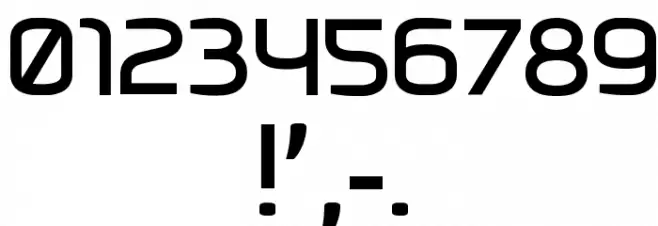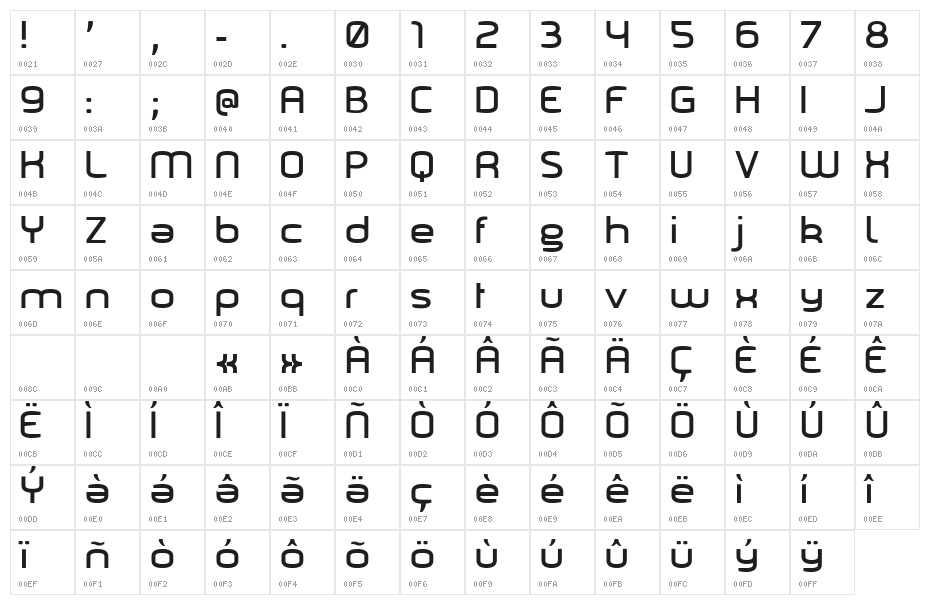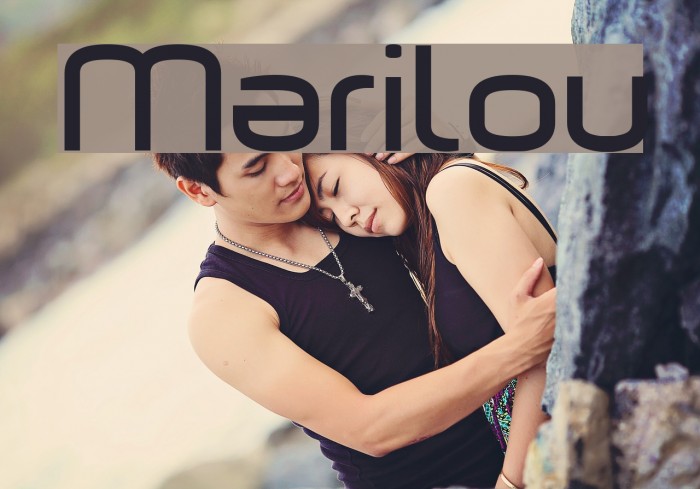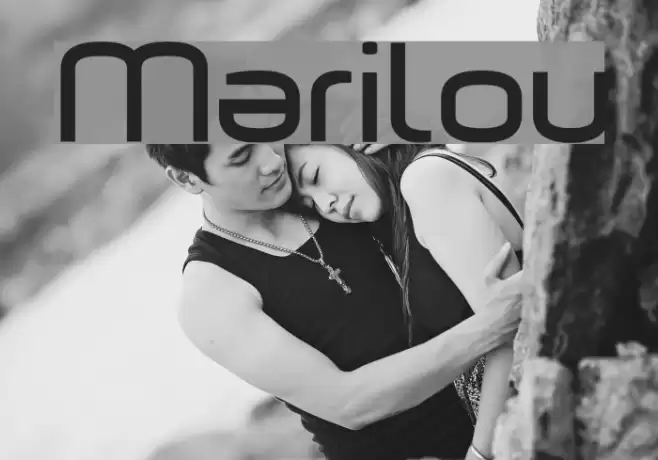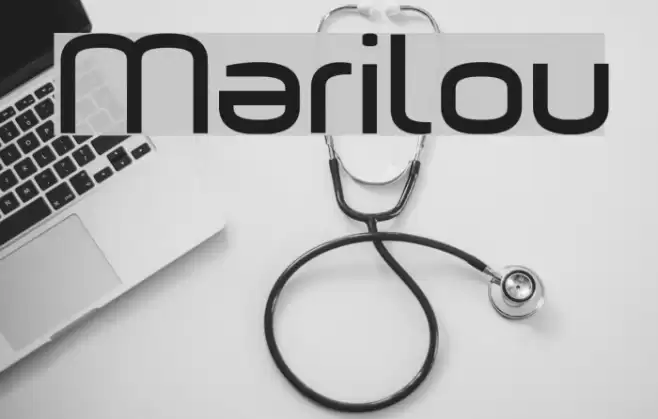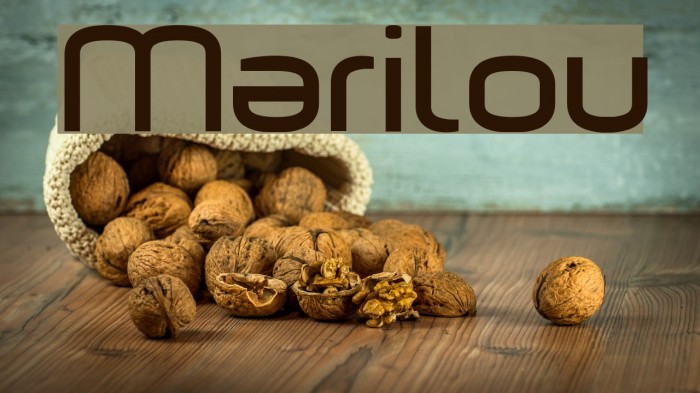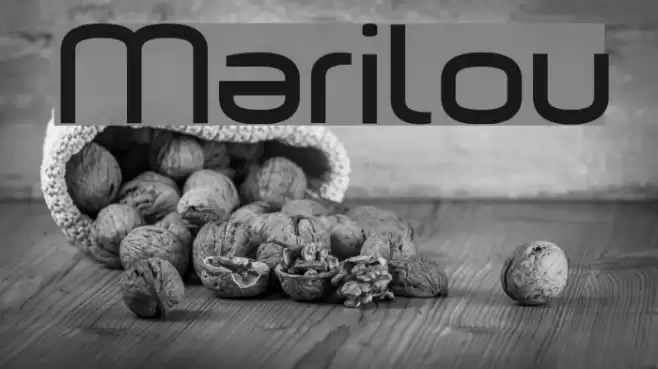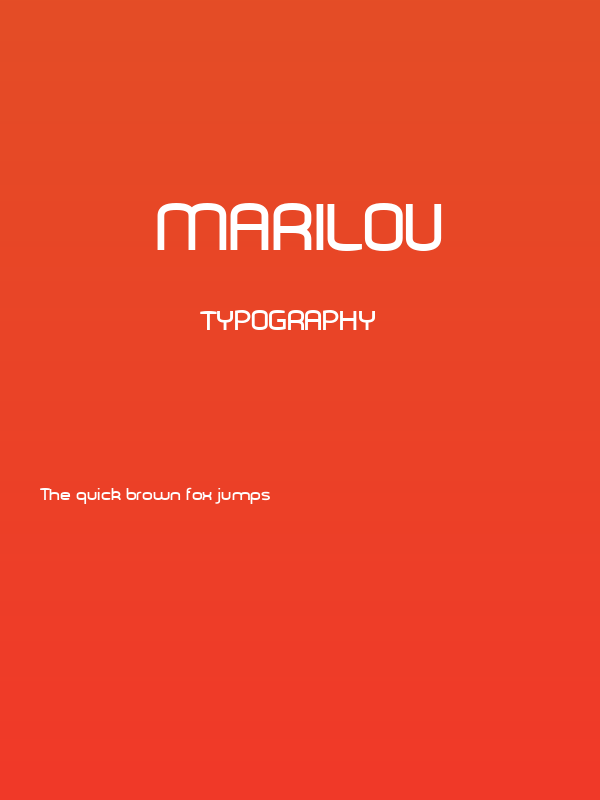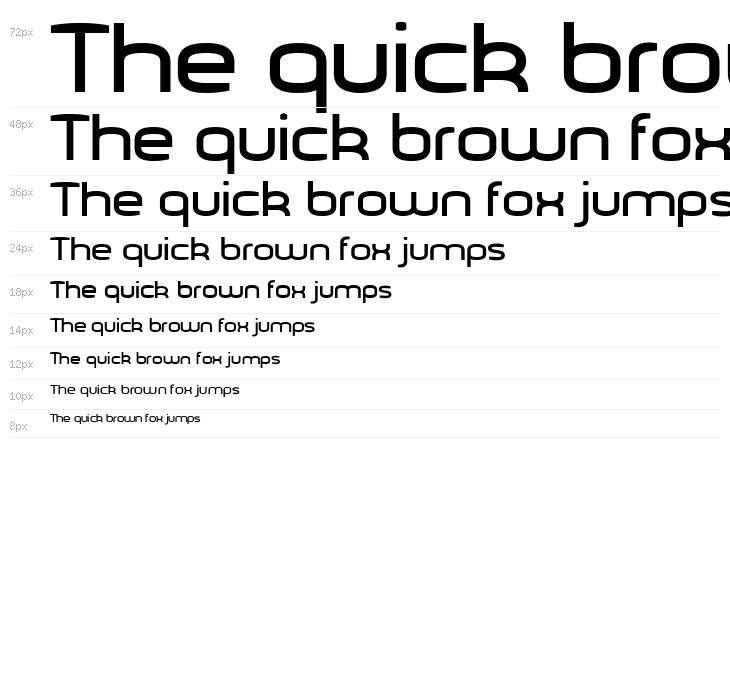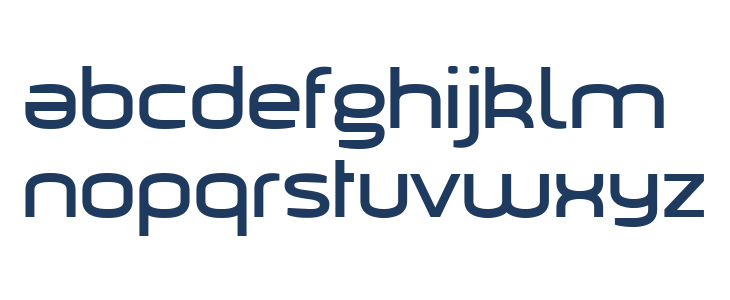
Marilou Font
Marilou Description
This font features a modern, geometric sans-serif style with clean lines and a uniform stroke width. The characters are rounded and smooth, giving it a friendly and approachable appearance. The uppercase letters are tall and slightly condensed, while the lowercase letters maintain a consistent height and width, contributing to a balanced and harmonious look. The numerals are clear and legible, matching the overall style of the alphabet. Special characters are designed with the same attention to detail, ensuring consistency across all glyphs. This font is versatile and can be used in various design contexts, from digital interfaces to print media.